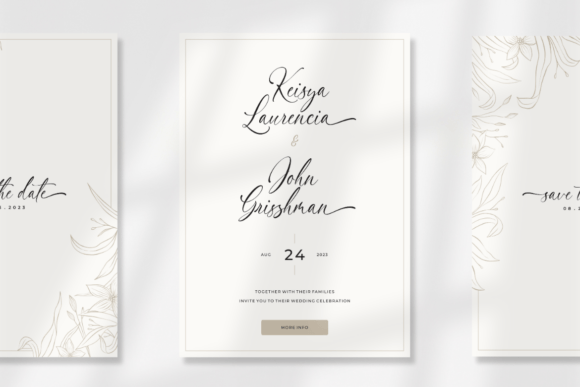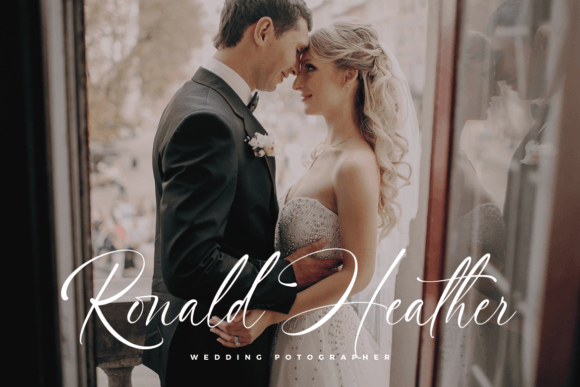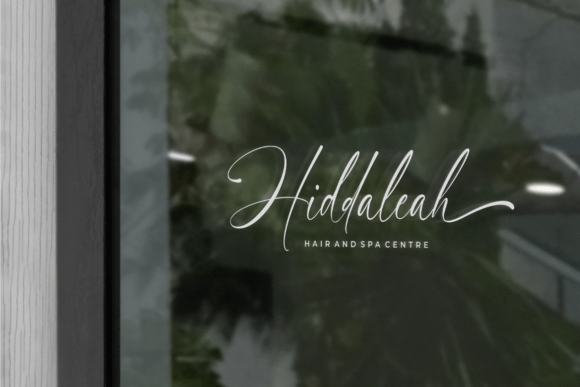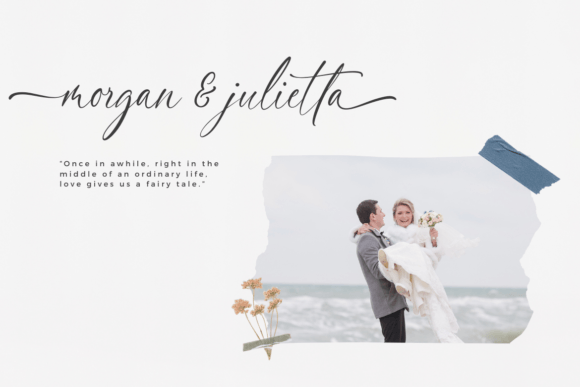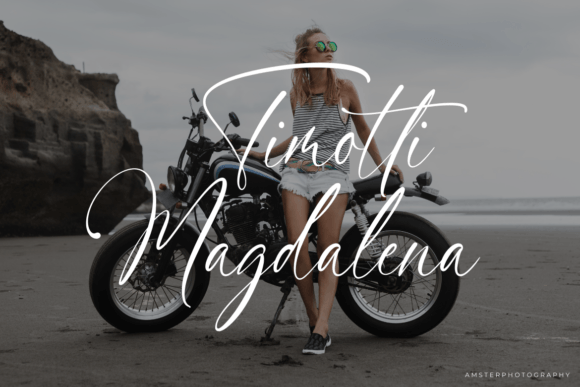
Introduction to Herra Maddison Font
Herra Maddison is a stunning and sophisticated font that radiates beauty and grace.
With its graceful flourishes and sweeping curves, this font is perfect for wedding invitations, branding materials, and other projects where a lovely and stylish script is desired to create a timeless and elegant look Keep in mind that the font is PUA encoded, meaning that you can access all delightful glyphs and swashes effortlessly.
Key Features of Herra Maddison Font
Why Choose Herra Maddison Font?
Herra Maddison Font offers exceptional quality and versatility, making it a valuable addition to your design toolkit. Whether you’re creating for personal projects or commercial use, Herra Maddison Font delivers professional results.